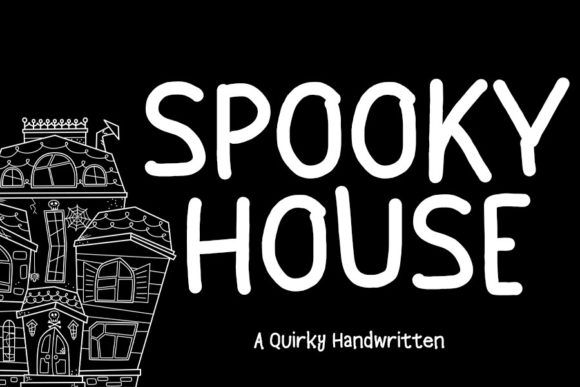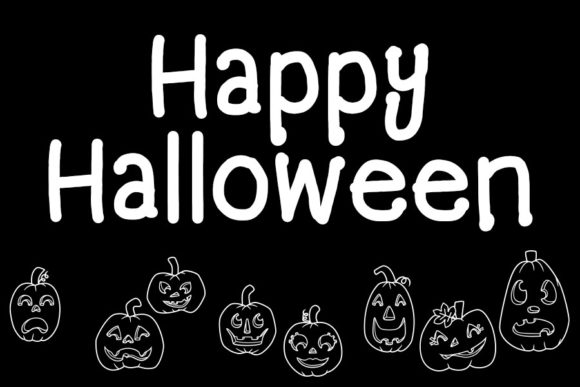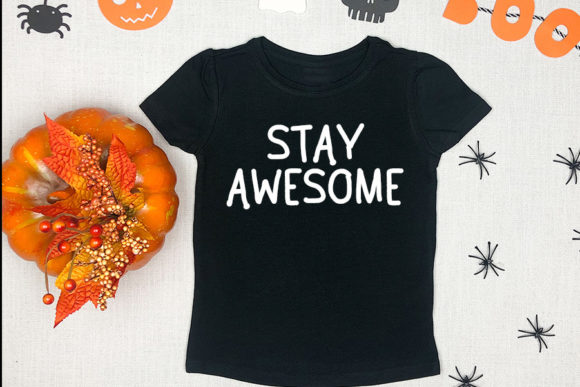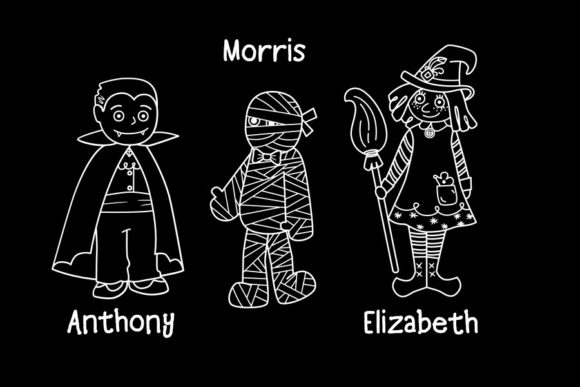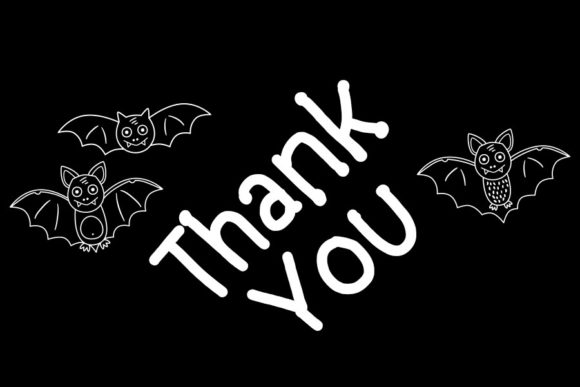
Spooky House Font
About Spooky House Font
Spooky House is an awesome handwritten font. With friendly characters and a natural, playful style, this typeface is a great choice for almost any project!